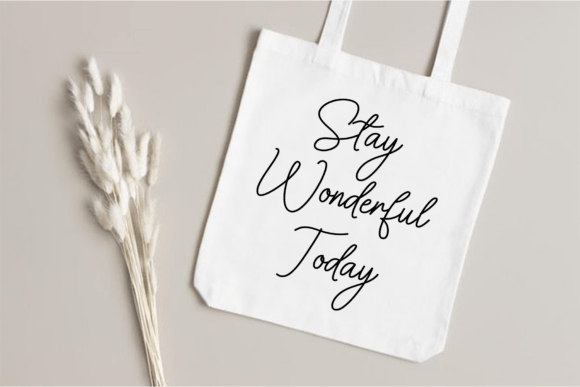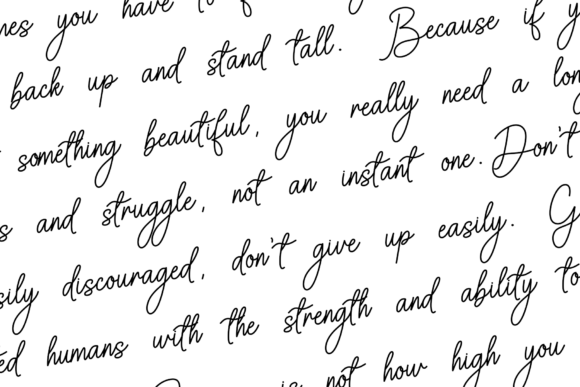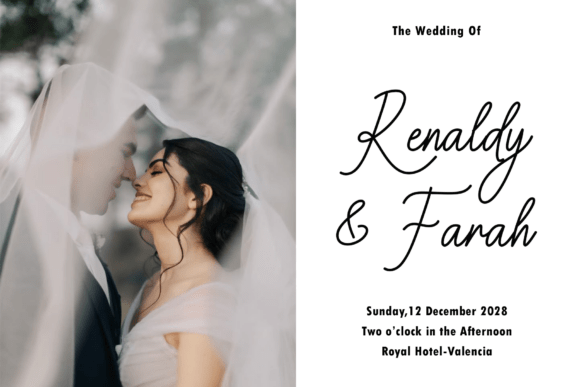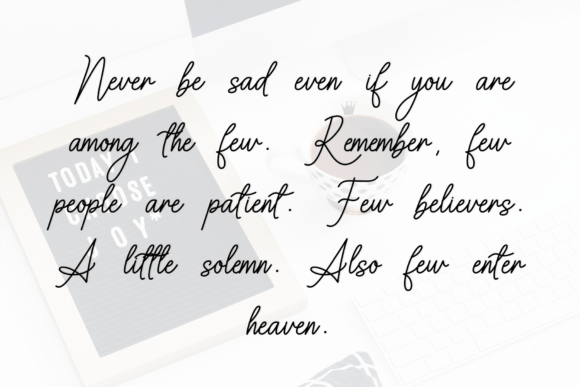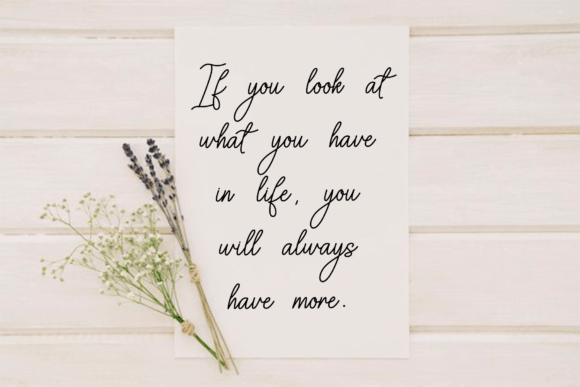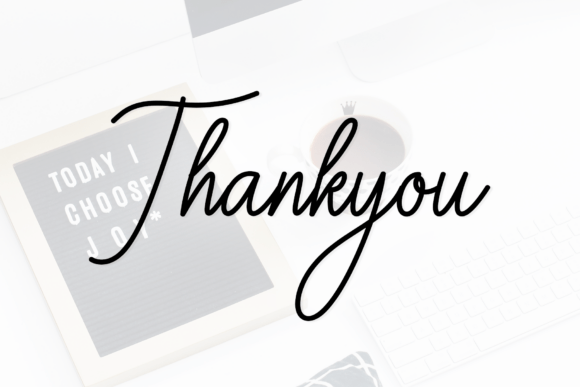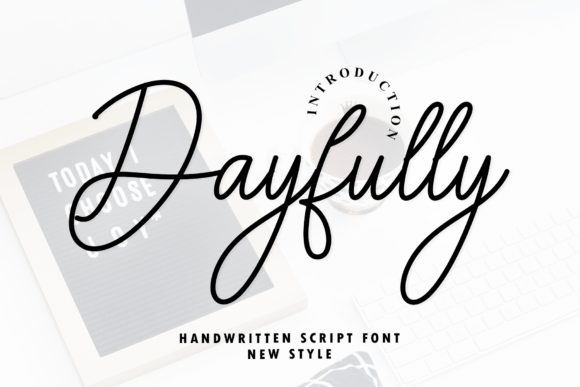
Introducing Dayfully Font: Elevate Your Designs with Elegance and Sophistication
In the world of typography, a font can make or break the aesthetic of a design. For those seeking an elegant and fluid handwritten script font that embodies modern sophistication, look no further than Dayfully. This exquisite typeface is meticulously crafted to bring a touch of luxury to various design projects, making it an ideal choice for discerning designers and crafters.
The Essence of Dayfully Font
Dayfully is more than just a font; it’s an experience. It captures the essence of a modern, sophisticated typeface that can elevate any design from ordinary to extraordinary. With its elegant strokes and fluid connections, Dayfully exudes a sense of refinement and poise, perfect for projects that demand a high level of sophistication.
Ideal Applications for Dayfully Font
Dayfully’s versatility makes it suitable for a wide range of applications, particularly where elegance and luxury are paramount. Some of the ideal uses for Dayfully include:
- Luxury Wedding Stationery: Create bespoke wedding invitations, save-the-date cards, and ceremony programs that reflect the couple’s refined taste.
- Intimate Event Branding: Whether it’s a sophisticated gala, a private dinner party, or an exclusive corporate event, Dayfully can help set the tone for an unforgettable experience.
- High-End Editorial Signatures: Add a touch of elegance to magazine articles, blog posts, and other editorial content with Dayfully’s distinctive signature style.
- Sophisticated Lifestyle Photography Overlays: Enhance your photography with elegant text overlays that complement the images without overpowering them.
Why Choose Dayfully Font?
With numerous fonts available, what sets Dayfully apart? Here are a few reasons why Dayfully should be your go-to choice for elegant and sophisticated designs:
- Unique Elegance: Dayfully boasts a unique yet timeless elegance that can instantly elevate the sophistication level of any design.
- Versatility: Its fluid and adaptable nature makes it suitable for a variety of design projects, from digital content to print materials.
- Easy to Read: Despite its elegant and cursive nature, Dayfully maintains a high level of legibility, making it perfect for both headings and body text.
- Customizable: As a digital font, Dayfully can be easily manipulated and customized to fit the specific needs of your design project.
Tips for Using Dayfully Font Effectively
To maximize the impact of Dayfully in your designs, consider the following tips:
- Pair with Complementary Fonts: Combine Dayfully with clean, sans-serif fonts for body text to create a harmonious contrast.
- Adjust Letter Spacing: For headings, slightly adjust the letter spacing to enhance the elegant and airy feel of Dayfully.
- Utilize Font Weights: Experiment with different font weights to add hierarchy and depth to your designs.
- Play with Colors: While Dayfully looks stunning in black or dark colors, don’t hesitate to experiment with subtle color variations to match your brand’s palette.
Dayfully Font is a masterpiece of modern typography, offering designers and crafters a powerful tool to infuse their projects with elegance and sophistication. Whether you’re creating luxury wedding stationery, branding an intimate event, or adding a signature touch to editorial content, Dayfully is the perfect choice. Its unique blend of fluidity, elegance, and readability makes it a versatile and valuable addition to any designer’s font collection.
Embrace the beauty of Dayfully and discover a world of design possibilities that exude luxury, sophistication, and timeless elegance.